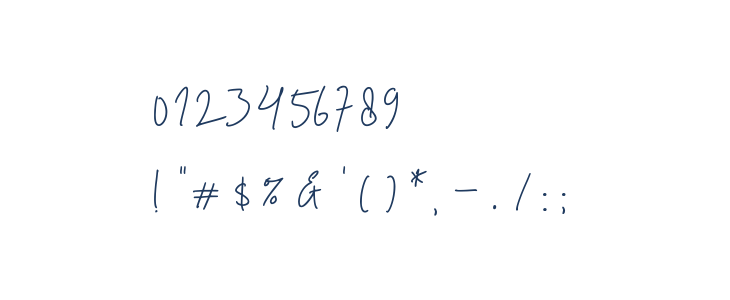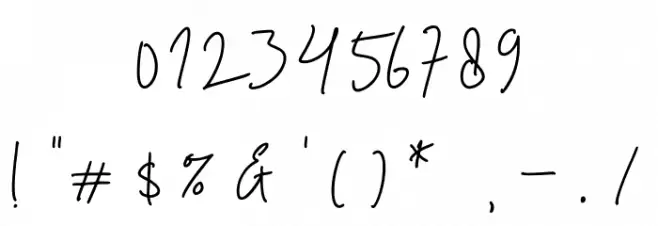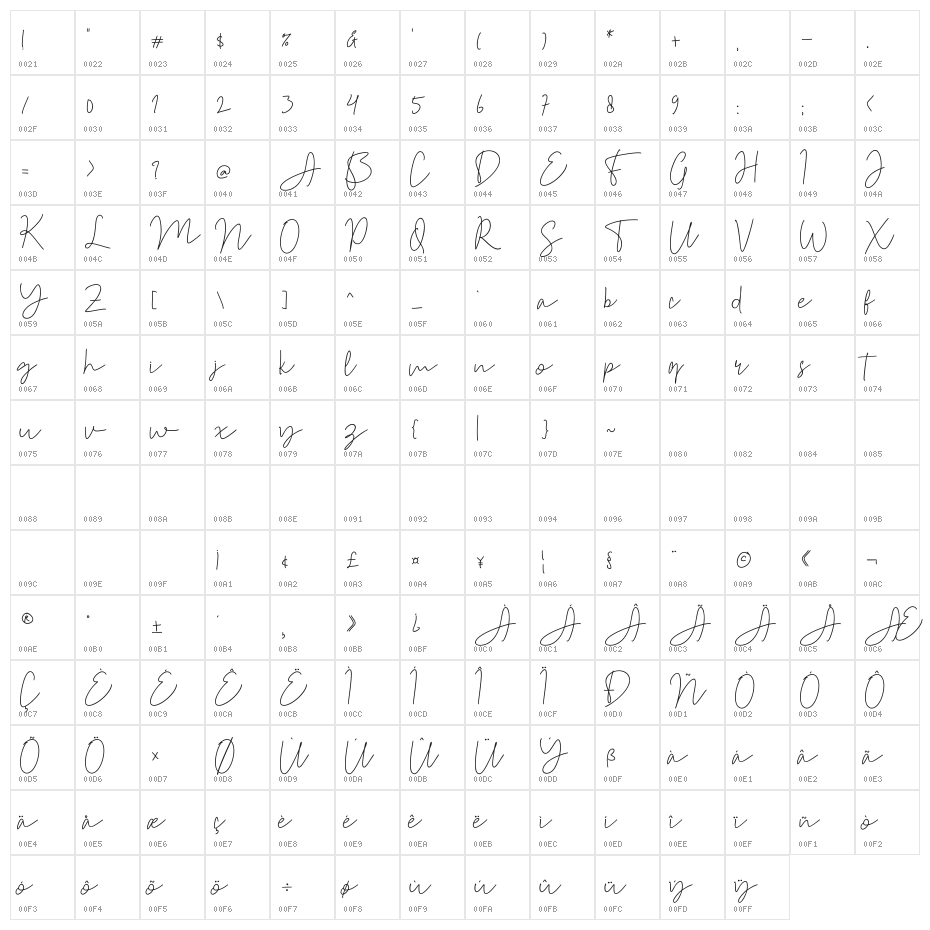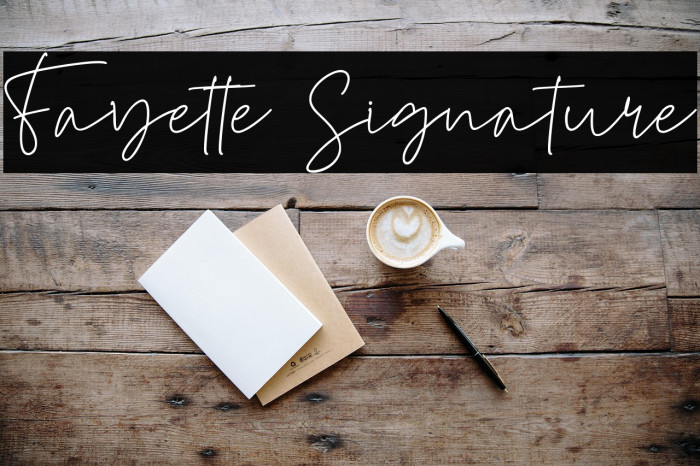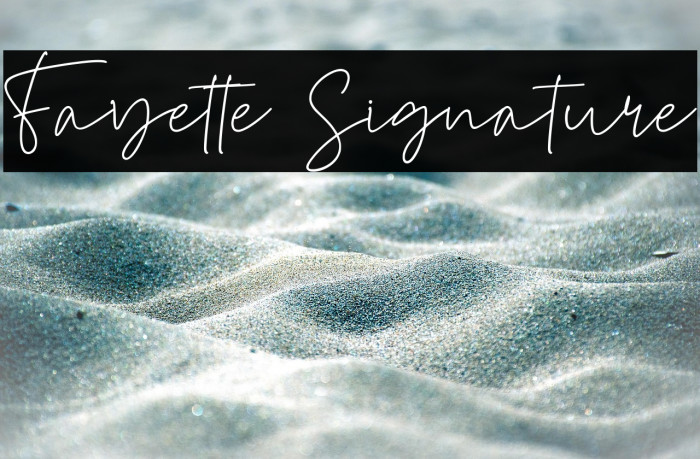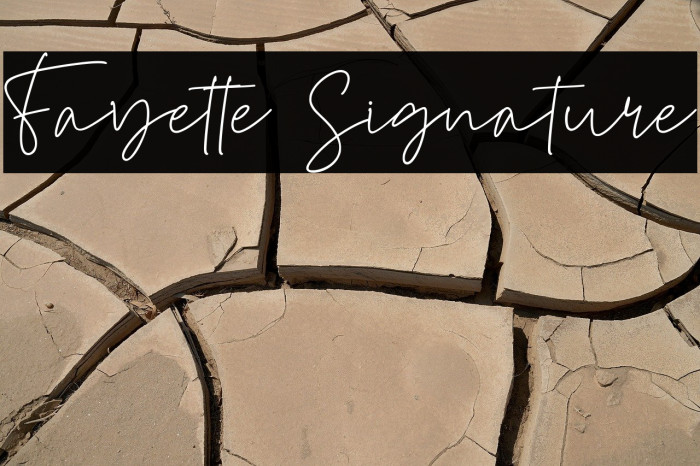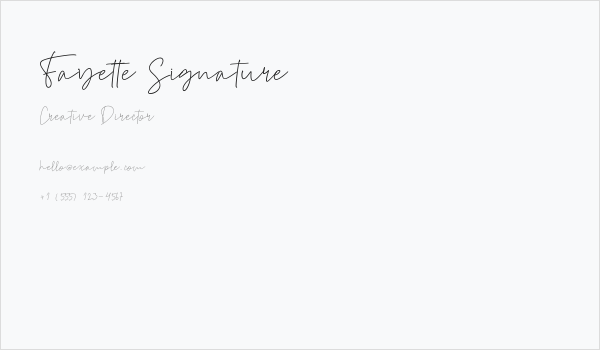
Fayette Signature Font
Fayette Signature Description
This font exudes a casual and elegant handwritten style, characterized by its fluid and continuous strokes that mimic natural handwriting. The uppercase letters are slightly more structured, while the lowercase letters flow with a more relaxed and informal touch. The numerals maintain a consistent style with the letters, ensuring a cohesive look. Special characters are thoughtfully integrated, adding versatility to the font. The overall appearance is both sophisticated and approachable, making it suitable for a variety of design projects that require a personal and artistic touch.
A casual and elegant handwritten font with fluid strokes from Regular fonts.